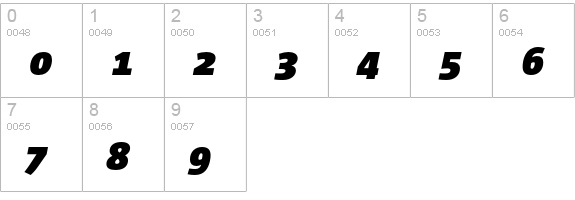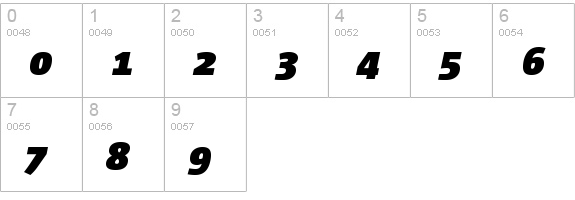
Corpid Black Italic is a maximum-weight, dramatic, italic variant in the Corpid typeface family \xE2\x80\x94 well suited to maximum-impact headlines, posters, and packaging.
Corpid Black Italic is a sleek and modern typeface that exudes sophistication and elegance. Its bold yet refined design makes it perfect for adding a touch of class to any project. The italicized style adds a dynamic and engaging flair to your text, making it stand out with a sense of style and flair. This versatile font is ideal for a wide range of applications, from branding and advertising to editorial design and web content. Its clean lines and sharp angles give it a contemporary and professional look that is sure to make a statement. And the best part? Corpid Black Italic is available for free download at FontsMarket.com. So you can add this stunning font to your collection without breaking the bank. Don't miss out on the opportunity to elevate your designs with this exceptional typeface. Download Corpid Black Italic today and take your projects to the next level.